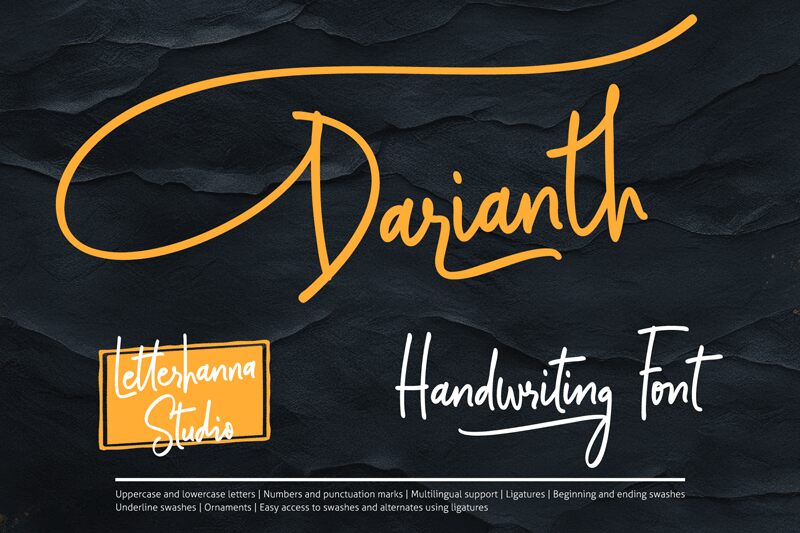
Darianth font designed by Letterhanna Type Foundry is a free handwritten font carefully crafted to bring a personal touch to any creation. Dynamic, fluid, and absolutely charming, its letters will captivate your audience with their inviting, informal, artistic feel. Express yourself however you want through every letter of this trendy writing style with a modern approach.
Whether for personal branding or marketing a business, Darianth will operate at its best and act as a connector between your brand and the consumer. Download it today for free and use it in projects involving logos, position marks, online posters, store signage, or business cards.